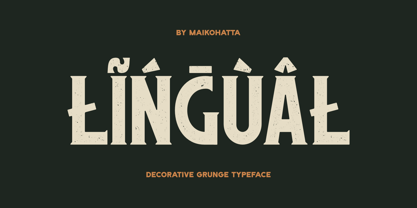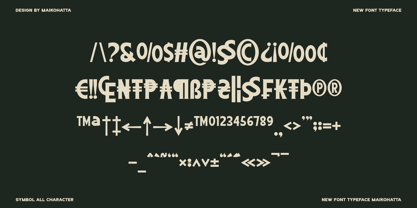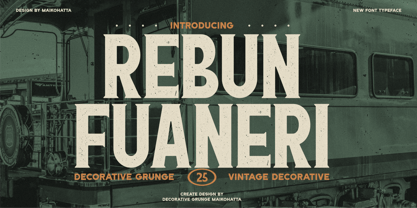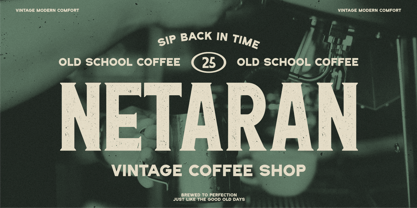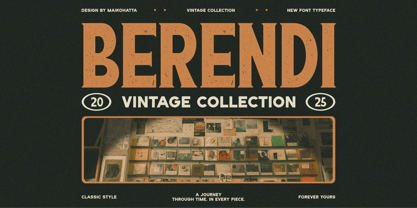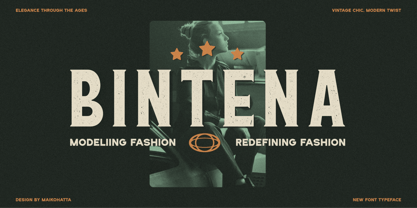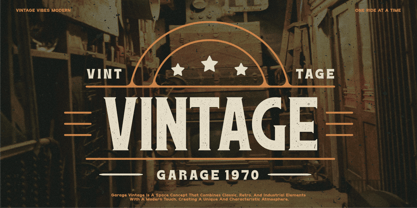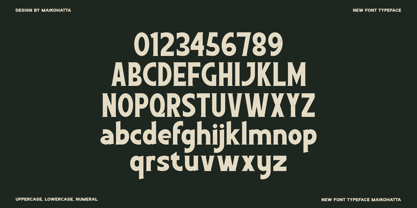
Rebun Fuaneri
by Maikohatta
The Rebun Fuaneri Font Family was designed by Gilang Ternadho and published by Maikohatta. Rebun Fuaneri contains 2 styles.
Introducing our new product Rebun Fuaneri - Decorative Retro Display
Rebun Fuaneri - Decorative Retro Display is a bold and authentic display font. The font is suitable for any branding project like logo, Template Design, esport, and many more. outstanding in a wide range of contexts.